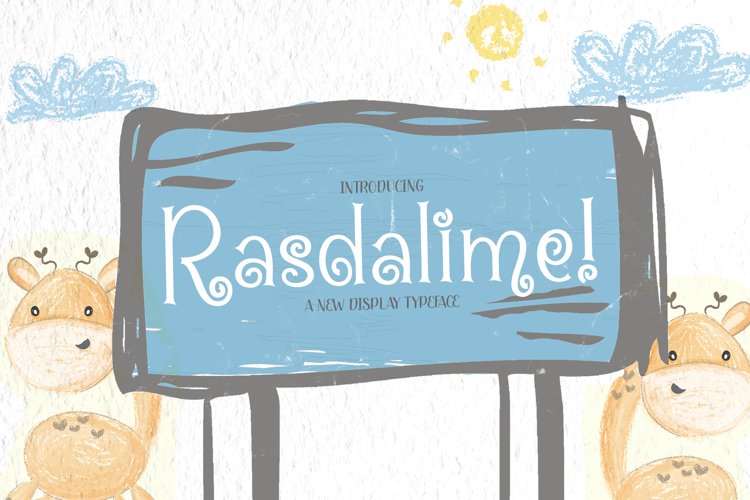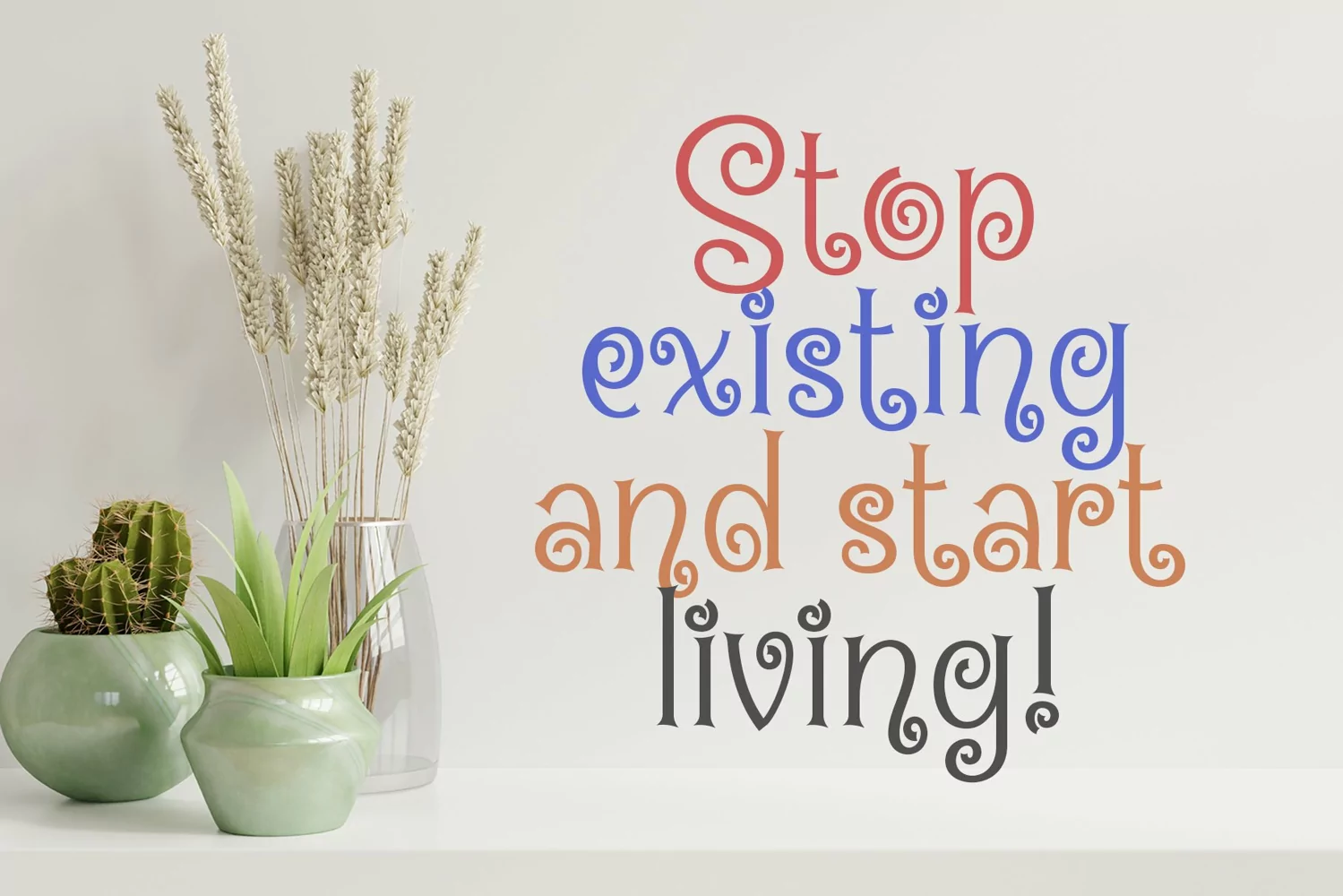
Rasdalime is a curly display typeface. Perfect for display, quotes, logo, mockup, packaging, merchandise, business card, crafting needs, print, product, and many more.